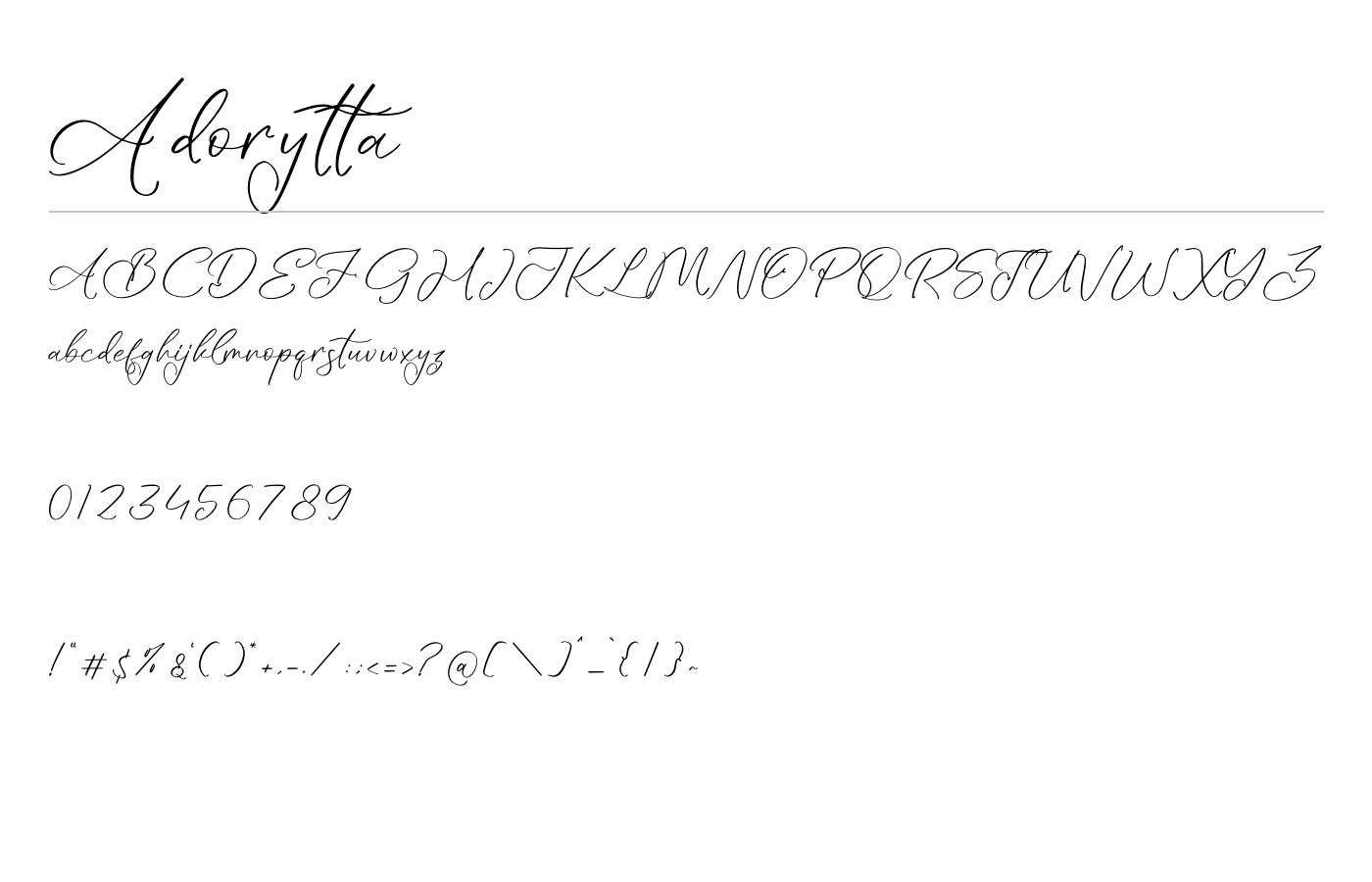
Adorytta is a delicate and elegant script font featuring fine, flowing strokes with a handwritten, calligraphic style. Its slender weight, graceful curves, and refined letterforms make it perfect for invitations, branding, and other designs that require a sophisticated, personal touch. This font works best in decorative uses where a light, airy, and romantic atmosphere is desired.
Adorytta Font
About Adorytta Font